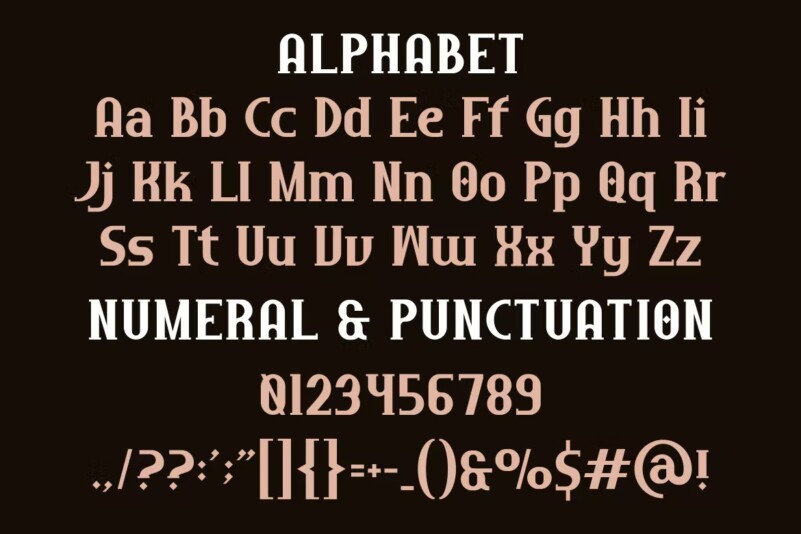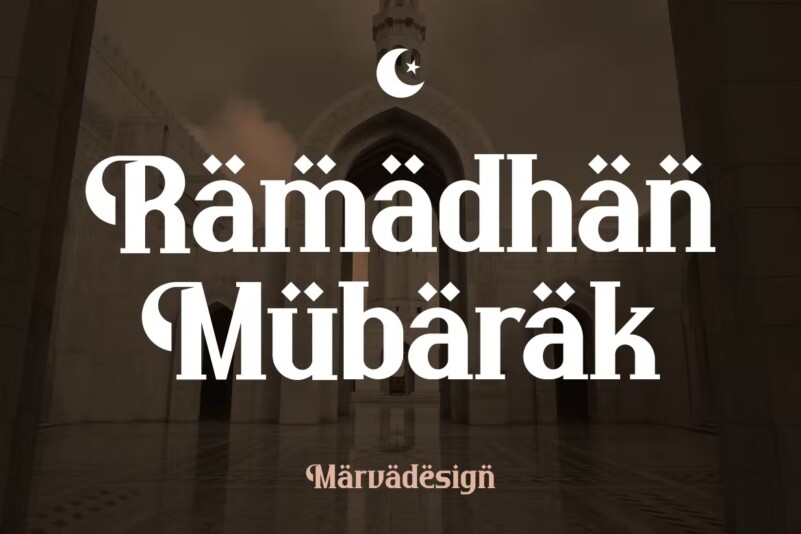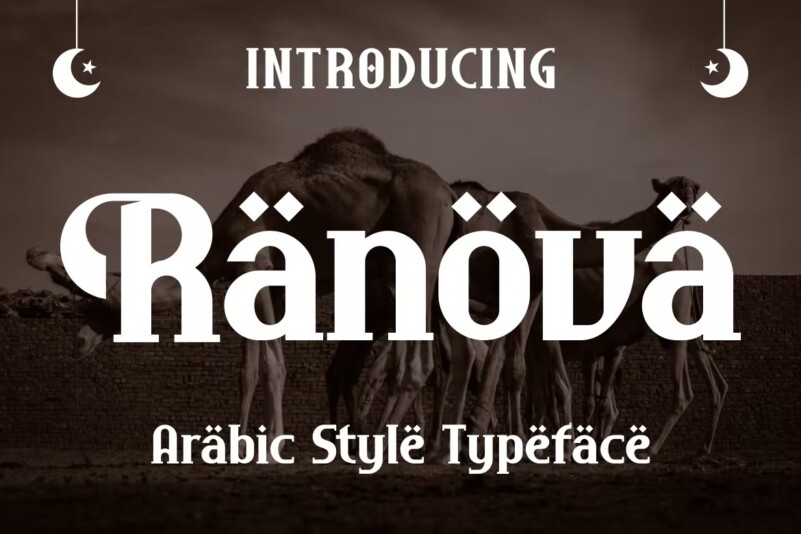
Ranova – Arabic Style Typeface
Introducing our new product Ranova Font – Modern Font Ranova Font** – Modern Font is a bold and authentic display font. The font is suitable for any branding project such as logo, t-shirt print, product and many more. She stands out in a wide range of contexts.